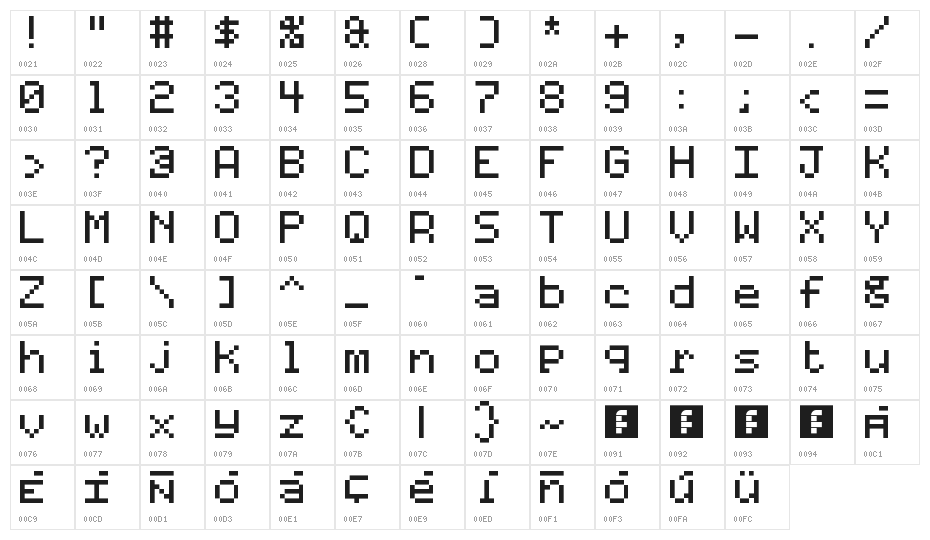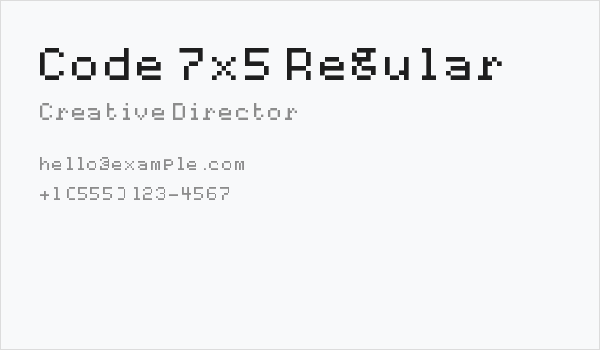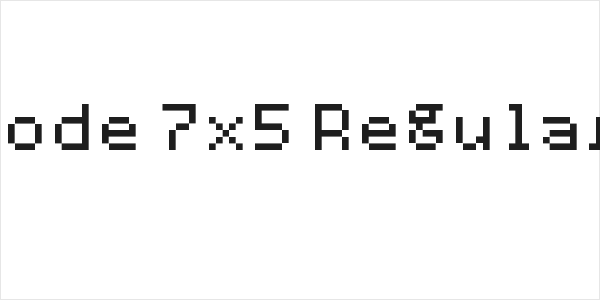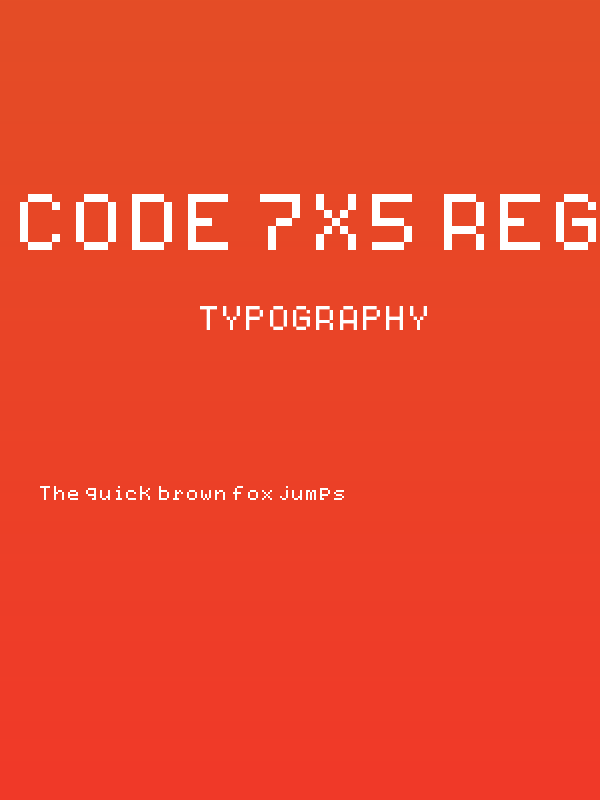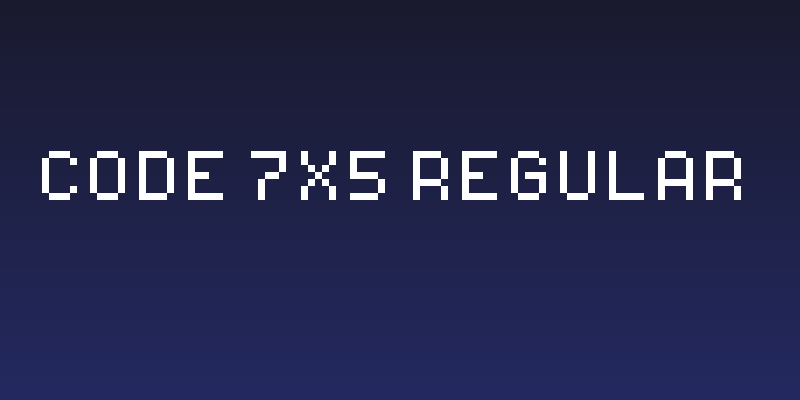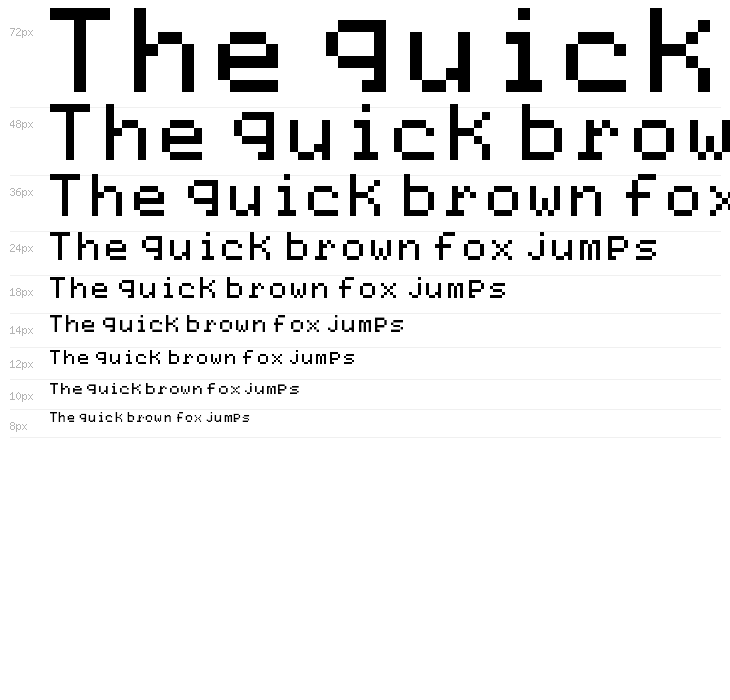
Code 7x5 Regular Font
Code 7x5 Regular Description
This font features a pixelated, monospaced design reminiscent of early computer and video game graphics. Each character is constructed with a grid-like precision, giving it a retro digital appearance. The uniformity in character width ensures a consistent and orderly presentation, making it ideal for environments where alignment and spacing are critical. The font's simplicity and clarity make it highly legible, even at smaller sizes. Its geometric structure is both functional and nostalgic, evoking a sense of classic computing aesthetics.
| Use Case | Logos, Coding, Digital displays |
| Proposed Projects | Ideal for retro-themed designs, coding environments, digital art projects, and video game interfaces. |